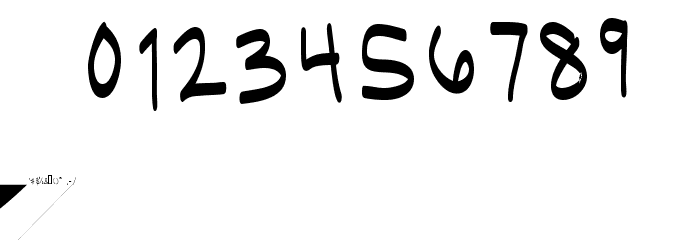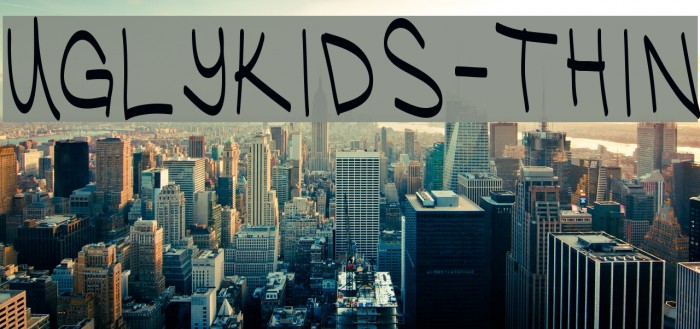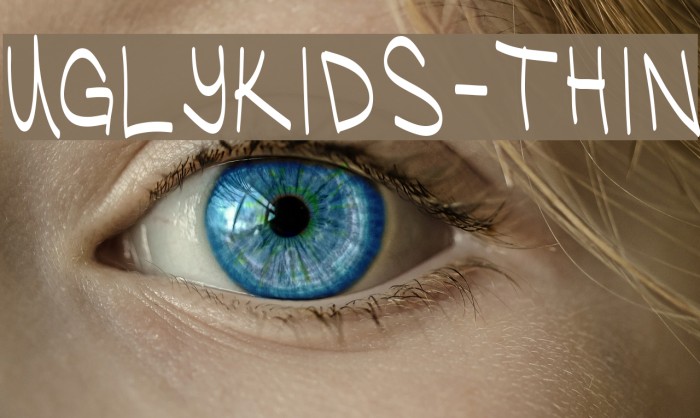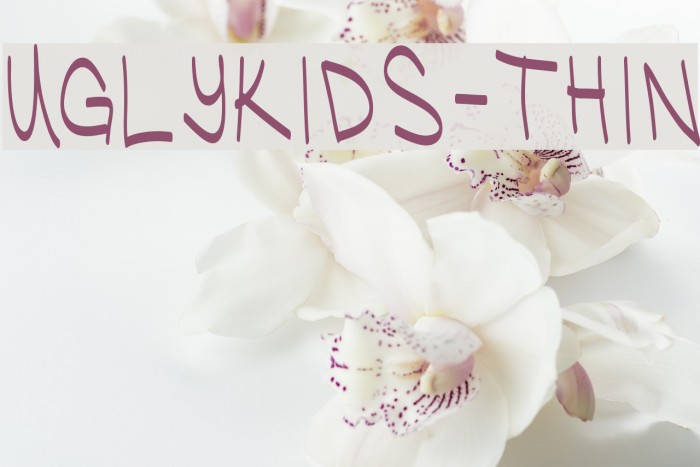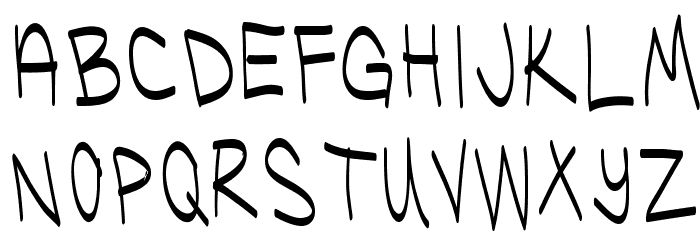
UglyKids-Thin Font
This playful and quirky font features a handwritten style with uneven strokes and a casual appearance. The characters are slightly irregular, giving it a whimsical and informal feel. The uppercase and lowercase letters maintain a consistent style, with rounded edges and a slight tilt, adding to its charm. Numbers and special characters are designed to match the overall playful aesthetic, making it suitable for creative and fun projects. The font's unique personality makes it stand out, perfect for designs that require a touch of individuality and creativity.
A playful, handwritten font with a quirky and informal style.
• Proposed Projects: Ideal for children's books, playful branding, greeting cards, and casual invitations.
• Category: Handwritten
• Overall Style: Casual, Playful
• Use Case: Headlines, Logos, Informal Text